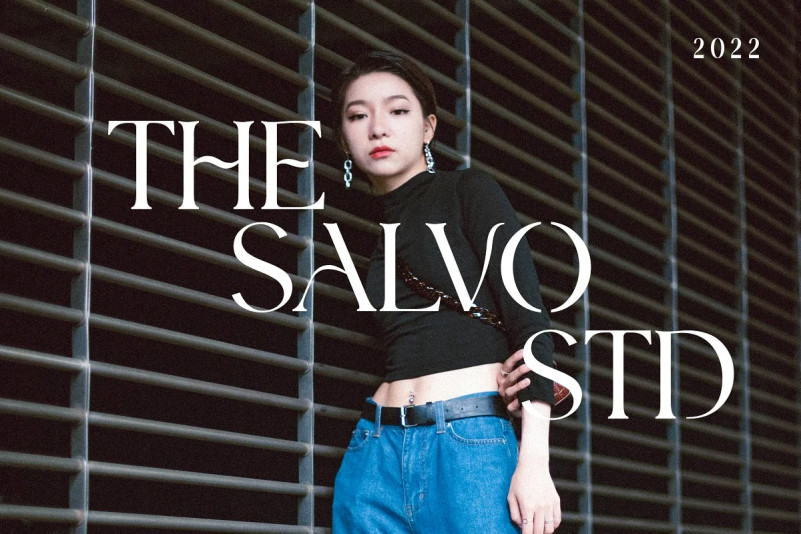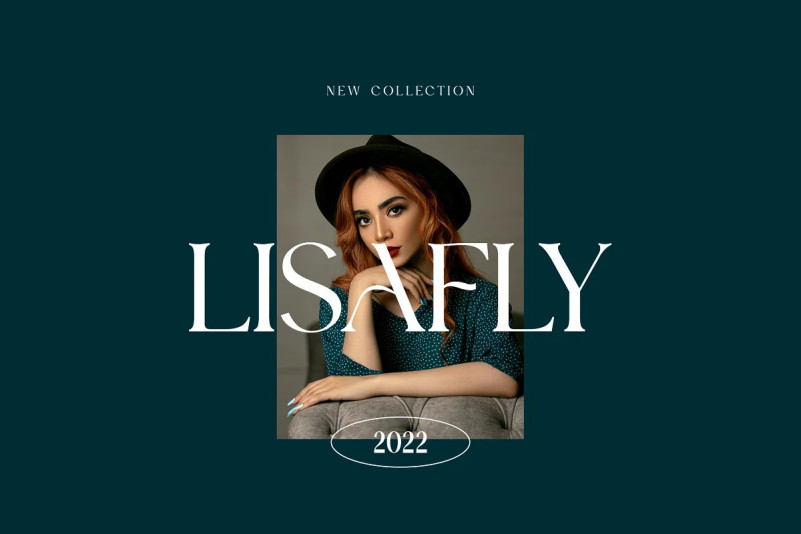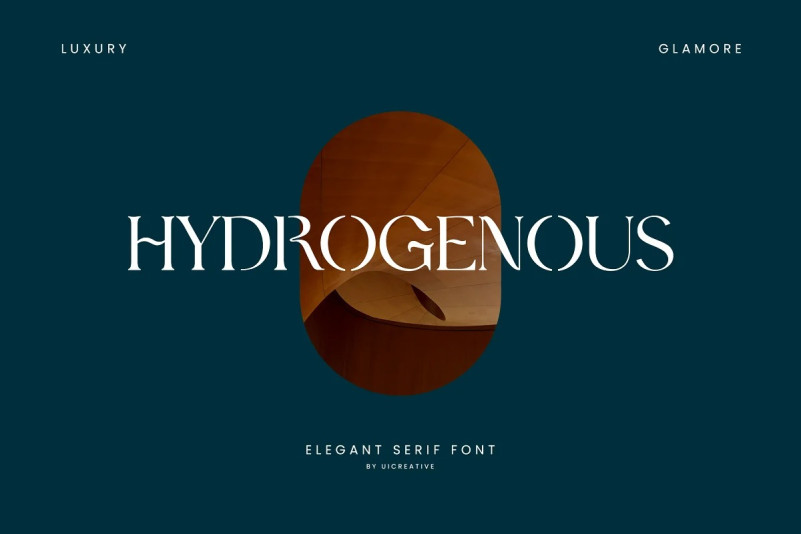
Hydrogenous Font
Hydrogenous Font – Modern Serif font that feels beautiful classy, elegant, and modern. This font is ideally suited for a wide variety of projects, such as signature, stationery, logo, wedding, typography quotes, magazine or book covers, website headers, clothing, branding, packaging design, and more. Also, fashion-related branding or editorial design displays both masculine and feminine qualities.